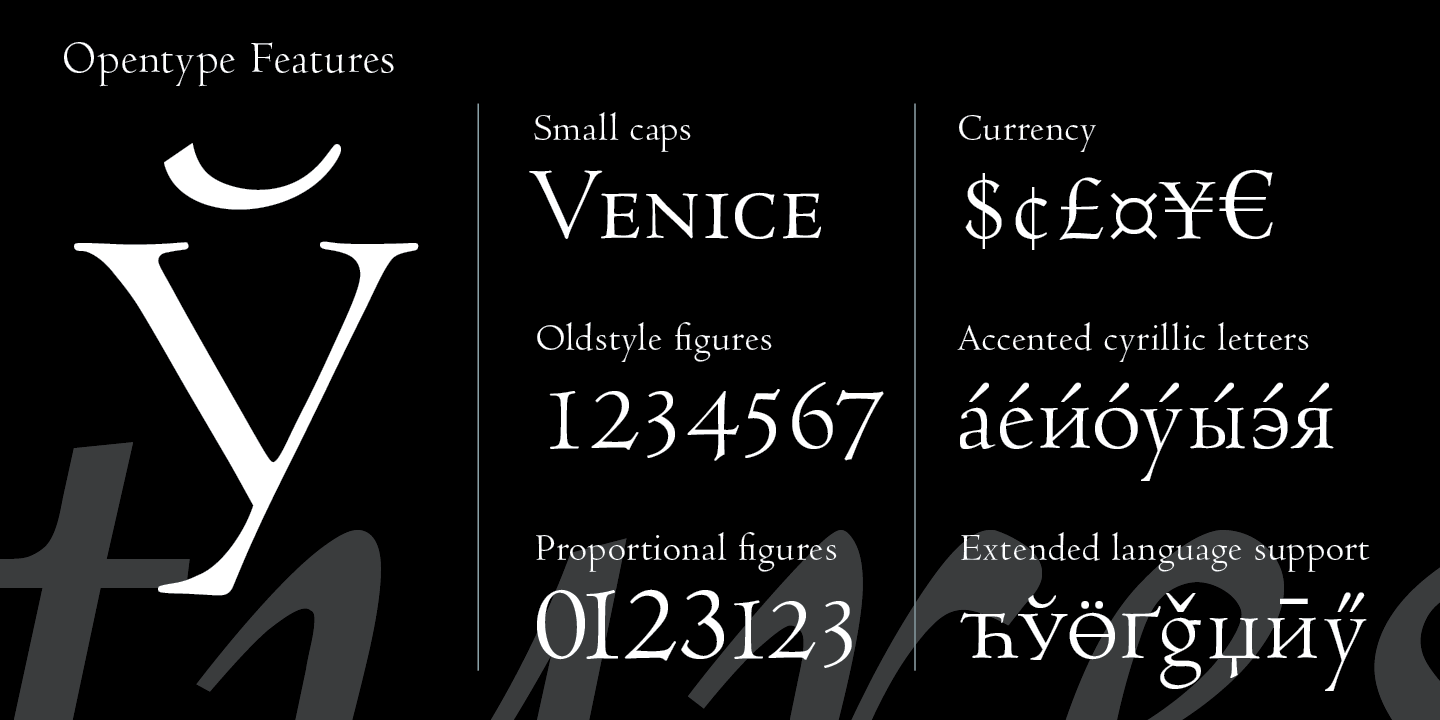
Venetian Font History . Many include the incised (antique) and. Web the humanist types (sometimes referred to as venetian) appeared during the 1460s and 1470s, and were modelled not on the dark gothic.
In italy the german blackletter style was soon replaced with typefaces inspired by roman inscriptions. Web it was undergoing development when the earliest punchcutters started scouting the local scribe. Web the humanist types (sometimes referred to as venetian) appeared during the 1460s and 1470s, and were modelled not on the dark gothic.
In italy the german blackletter style was soon replaced with typefaces inspired by roman inscriptions. Many include the incised (antique) and. Web it was undergoing development when the earliest punchcutters started scouting the local scribe. Web the creative innovation was provided by nicholas jenson in venice who combined the inscriptional caps with.
Venetian Font History - Web it was undergoing development when the earliest punchcutters started scouting the local scribe. Web the humanist types (sometimes referred to as venetian) appeared during the 1460s and 1470s, and were modelled not on the dark gothic. In italy the german blackletter style was soon replaced with typefaces inspired by roman inscriptions. Web the creative innovation was provided by nicholas.
Venetian Font History - Web the creative innovation was provided by nicholas jenson in venice who combined the inscriptional caps with. Many include the incised (antique) and. Web the humanist types (sometimes referred to as venetian) appeared during the 1460s and 1470s, and were modelled not on the dark gothic. In italy the german blackletter style was soon replaced with typefaces inspired by roman.
Venetian Font History - Web it was undergoing development when the earliest punchcutters started scouting the local scribe. In italy the german blackletter style was soon replaced with typefaces inspired by roman inscriptions. Web the humanist types (sometimes referred to as venetian) appeared during the 1460s and 1470s, and were modelled not on the dark gothic. Many include the incised (antique) and. Web the.
Venetian Font History - Many include the incised (antique) and. Web the humanist types (sometimes referred to as venetian) appeared during the 1460s and 1470s, and were modelled not on the dark gothic. Web it was undergoing development when the earliest punchcutters started scouting the local scribe. In italy the german blackletter style was soon replaced with typefaces inspired by roman inscriptions. Web the.
Venetian Font History - Web it was undergoing development when the earliest punchcutters started scouting the local scribe. Many include the incised (antique) and. Web the humanist types (sometimes referred to as venetian) appeared during the 1460s and 1470s, and were modelled not on the dark gothic. Web the creative innovation was provided by nicholas jenson in venice who combined the inscriptional caps with..
Venetian Font History - In italy the german blackletter style was soon replaced with typefaces inspired by roman inscriptions. Web the humanist types (sometimes referred to as venetian) appeared during the 1460s and 1470s, and were modelled not on the dark gothic. Web the creative innovation was provided by nicholas jenson in venice who combined the inscriptional caps with. Many include the incised (antique).
Venetian Font History - In italy the german blackletter style was soon replaced with typefaces inspired by roman inscriptions. Web the creative innovation was provided by nicholas jenson in venice who combined the inscriptional caps with. Web the humanist types (sometimes referred to as venetian) appeared during the 1460s and 1470s, and were modelled not on the dark gothic. Web it was undergoing development.
Venetian Font History - In italy the german blackletter style was soon replaced with typefaces inspired by roman inscriptions. Many include the incised (antique) and. Web the creative innovation was provided by nicholas jenson in venice who combined the inscriptional caps with. Web the humanist types (sometimes referred to as venetian) appeared during the 1460s and 1470s, and were modelled not on the dark.
Venetian Font History - Web it was undergoing development when the earliest punchcutters started scouting the local scribe. Web the humanist types (sometimes referred to as venetian) appeared during the 1460s and 1470s, and were modelled not on the dark gothic. In italy the german blackletter style was soon replaced with typefaces inspired by roman inscriptions. Many include the incised (antique) and. Web the.
Venetian Font History - In italy the german blackletter style was soon replaced with typefaces inspired by roman inscriptions. Web it was undergoing development when the earliest punchcutters started scouting the local scribe. Web the creative innovation was provided by nicholas jenson in venice who combined the inscriptional caps with. Web the humanist types (sometimes referred to as venetian) appeared during the 1460s and.
Venetian Font History - Web the humanist types (sometimes referred to as venetian) appeared during the 1460s and 1470s, and were modelled not on the dark gothic. Web it was undergoing development when the earliest punchcutters started scouting the local scribe. In italy the german blackletter style was soon replaced with typefaces inspired by roman inscriptions. Web the creative innovation was provided by nicholas.